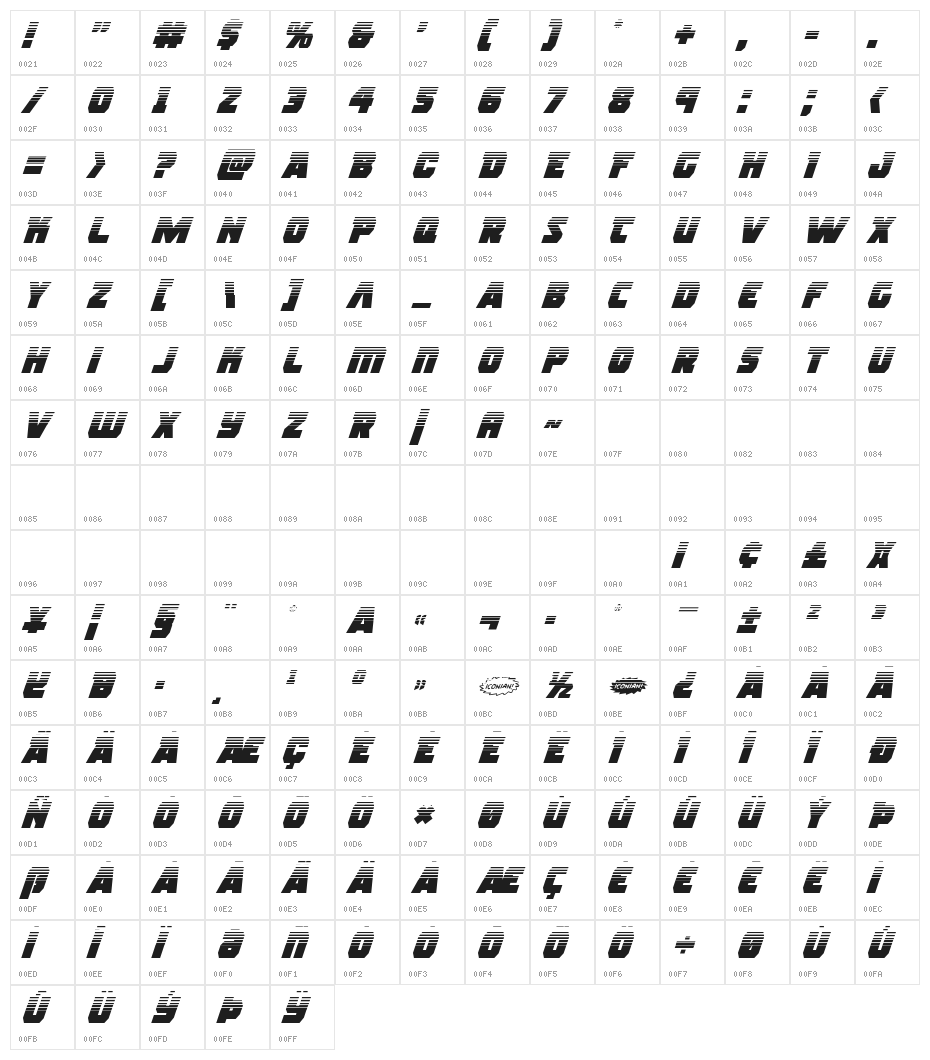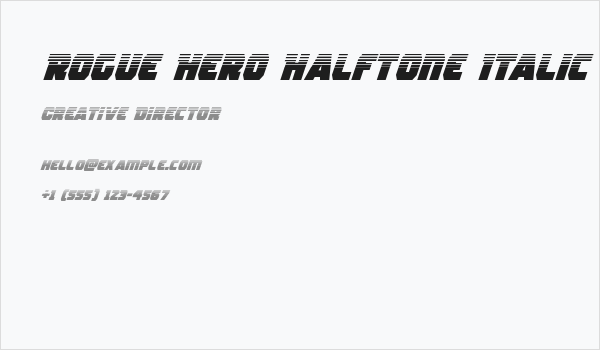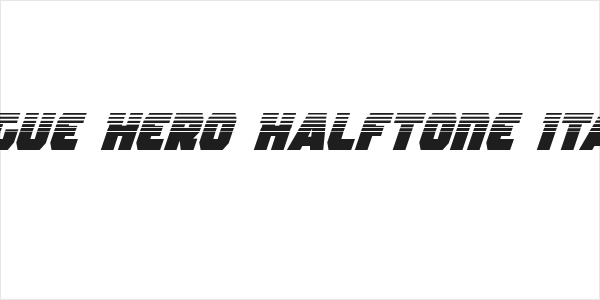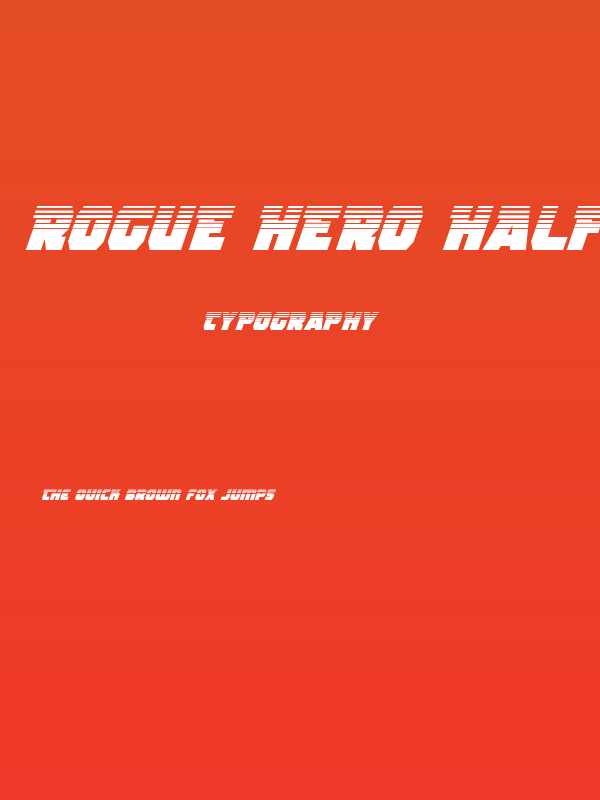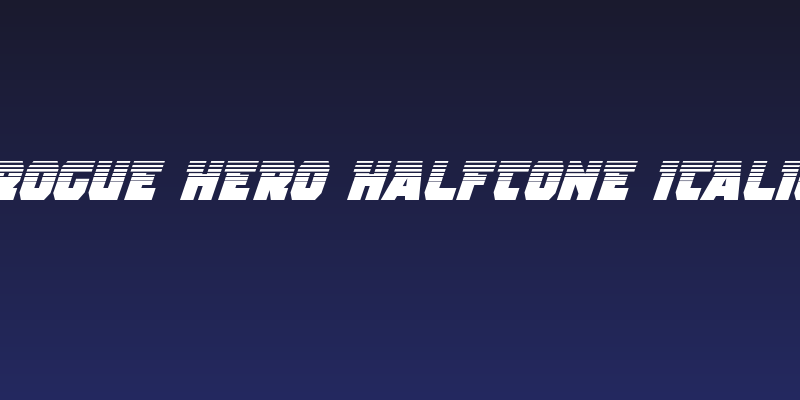
Rogue Hero Halftone Italic Font
Rogue Hero Halftone Italic Description
This font features a bold and dynamic style with a halftone effect that gives it a unique, futuristic appearance. The italicized letters are sharply angled, adding a sense of motion and energy. The uppercase and lowercase characters maintain a consistent design, with thick strokes and a distinctive pattern of horizontal lines that create a sense of depth and texture. The numerals and special characters follow the same stylistic approach, ensuring uniformity across all glyphs. This font is ideal for projects that require a strong visual impact and a modern, edgy look.
| Proposed Projects | Ideal for video game titles, movie posters, sports branding, and futuristic designs. |